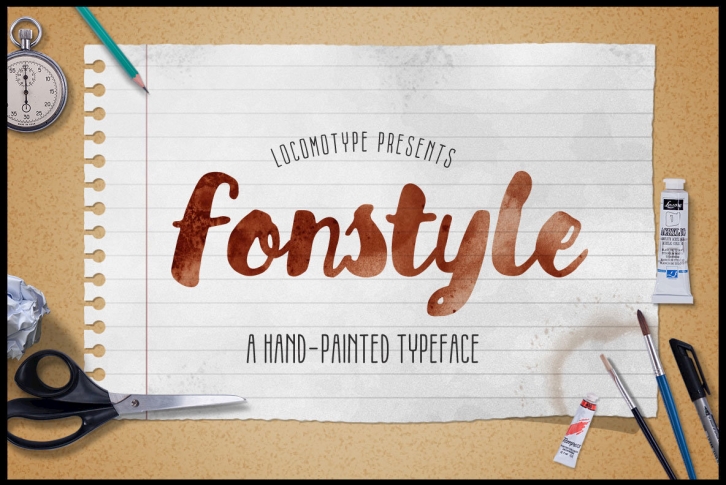
Introducing Fonstyle - a handmade typeface using brush and watercolour. Truly handmade quality to create an organic and natural design. Suitable for poster, headline, logo, pull-quotes, wedding invitation, label etc.